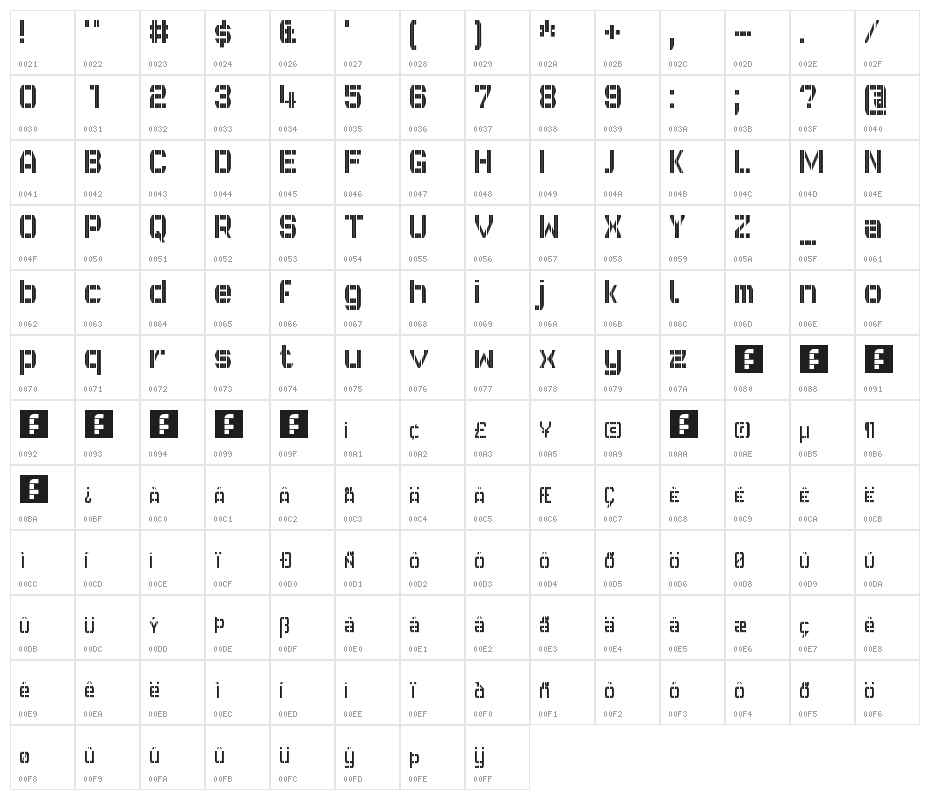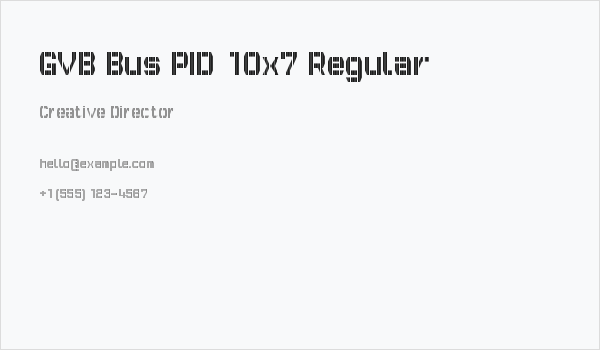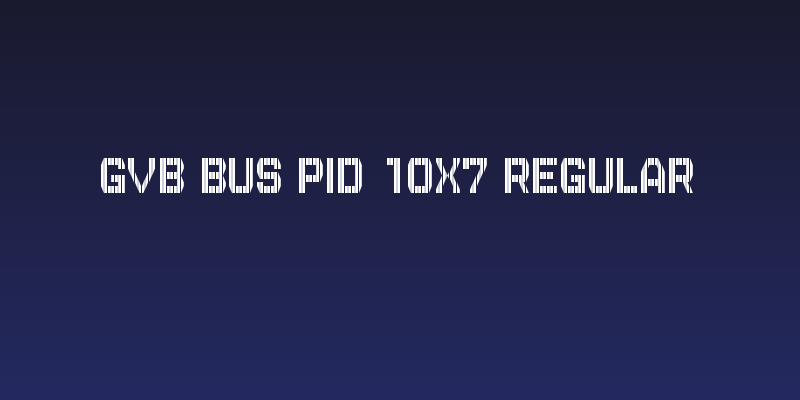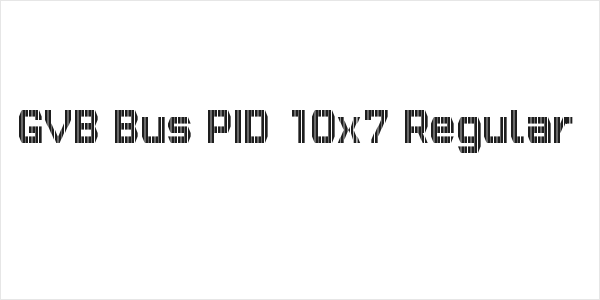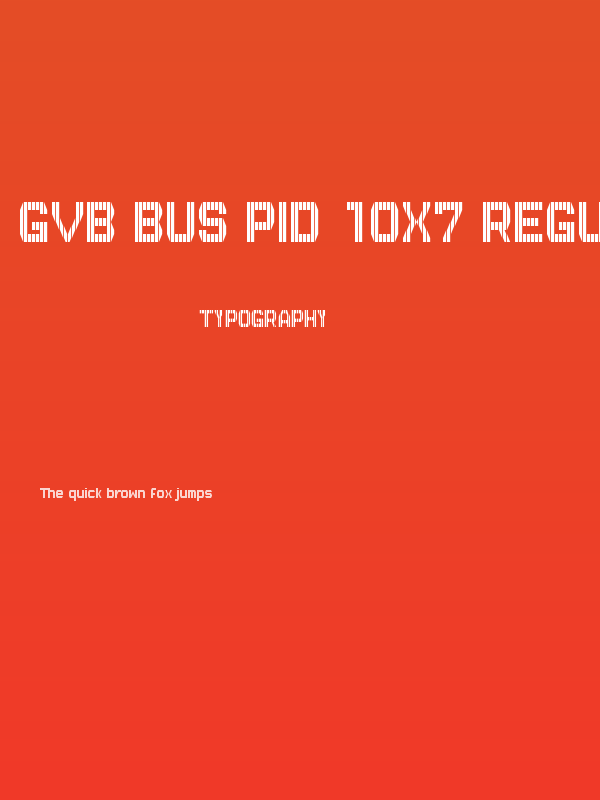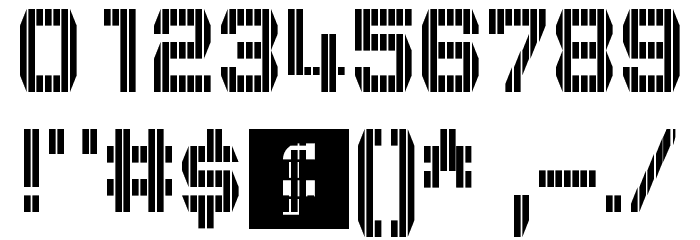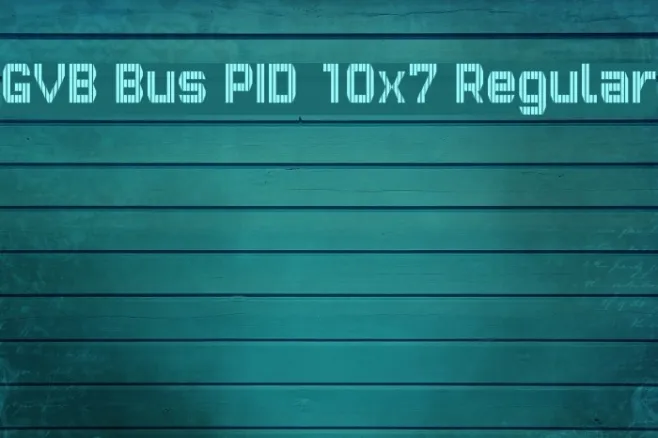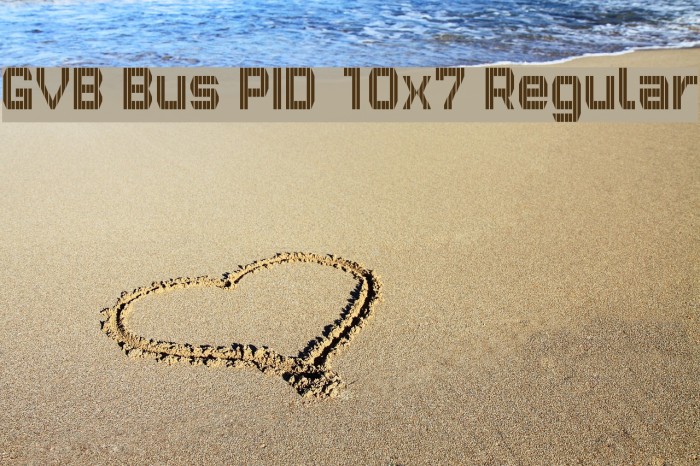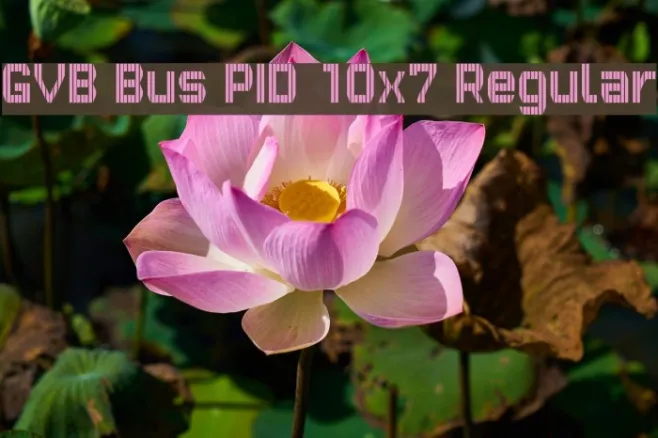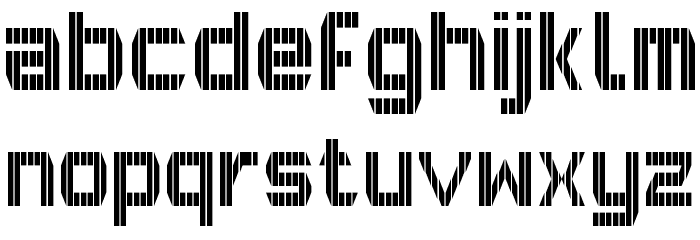
GVB Bus PID 10x7 Regular Font
GVB Bus PID 10x7 Regular Description
This font features a unique, modern design with a digital, pixelated appearance. Each character is constructed using a series of vertical lines, creating a distinct, futuristic look. The uppercase and lowercase letters maintain a consistent style, with sharp angles and a geometric structure. The numbers and special characters follow the same design principles, ensuring uniformity across the entire set. This font is particularly eye-catching and would be suitable for projects that require a technological or avant-garde aesthetic.
| Proposed Projects | Ideal for digital displays, tech-themed posters, video game graphics, and futuristic branding. |